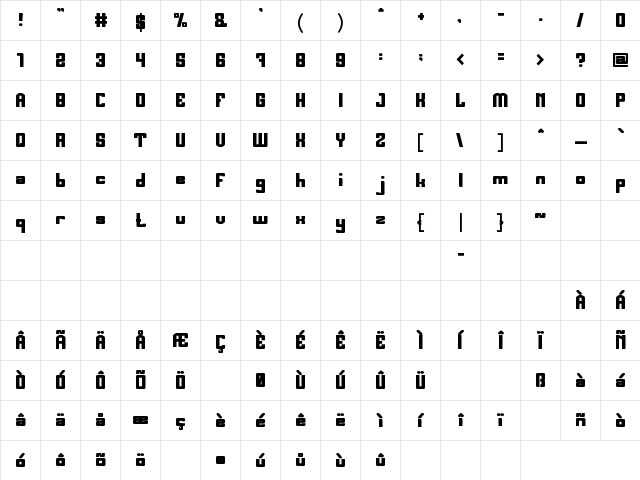
MY GOLDEN STAR Negreta
Design Context for MY GOLDEN STAR Typeface
MY GOLDEN STAR is a composed and adaptable typeface that performs quietly and consistently across a wide range of design contexts. The heavy weight commands attention and anchors typographic hierarchies.